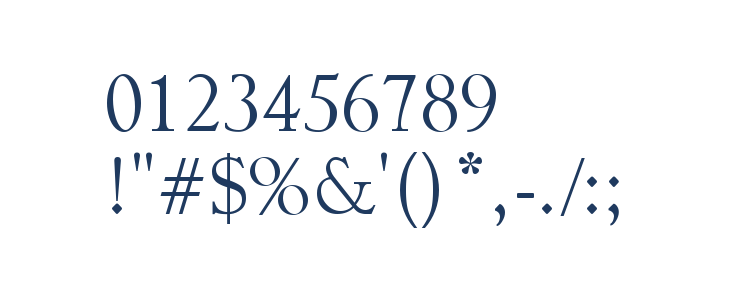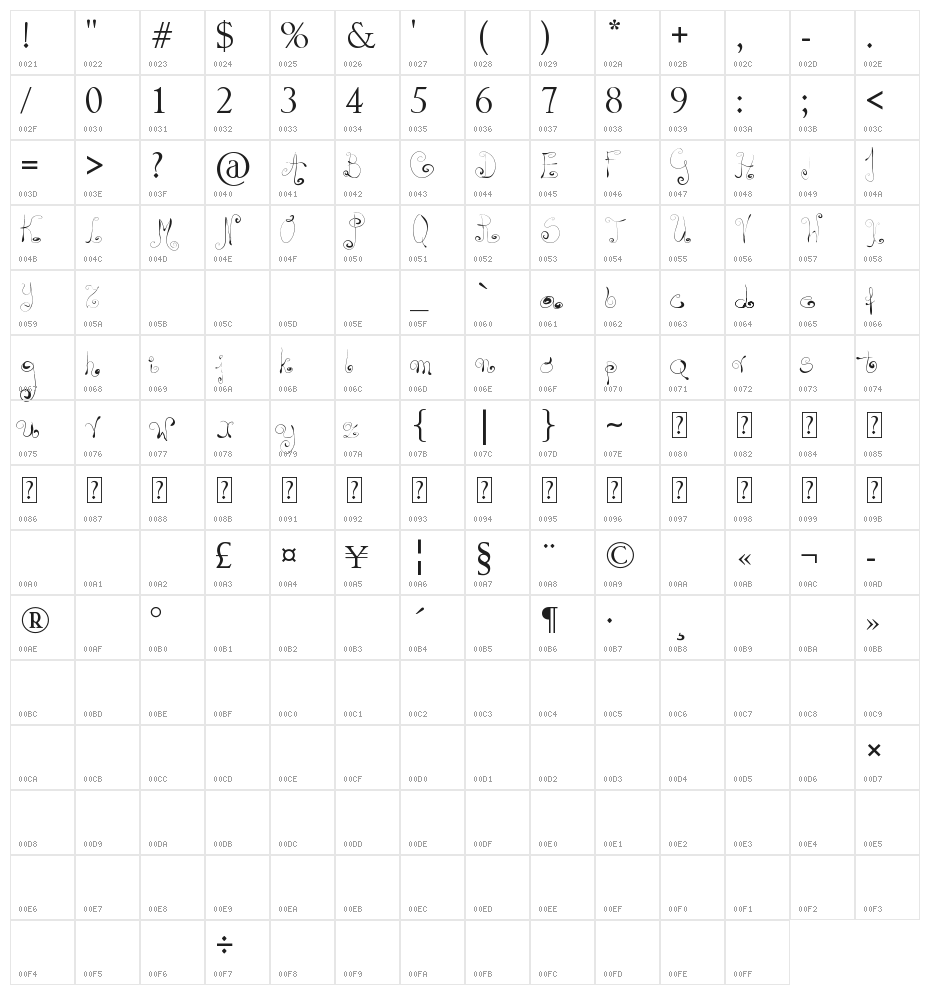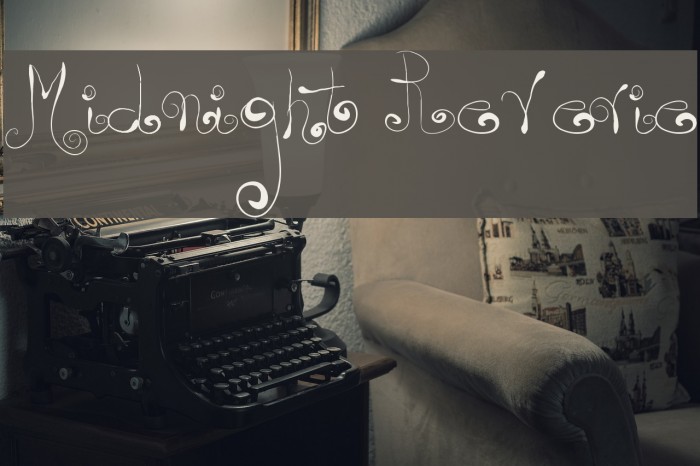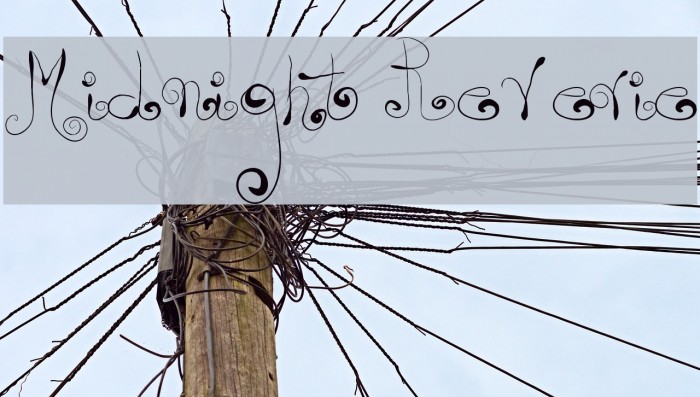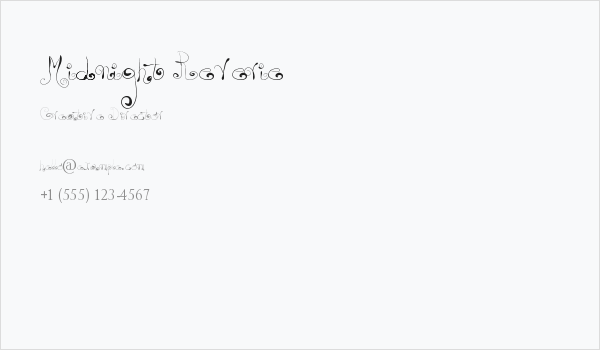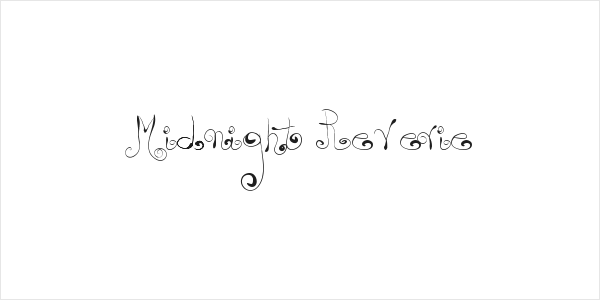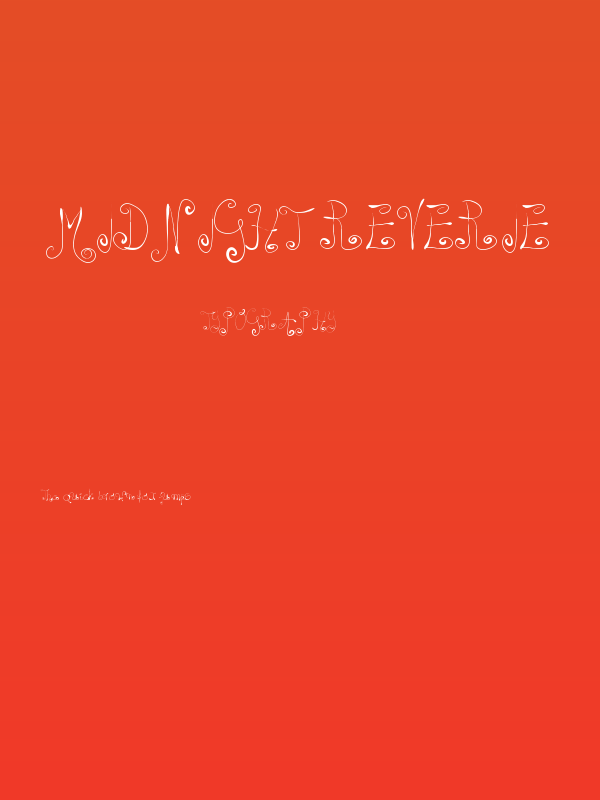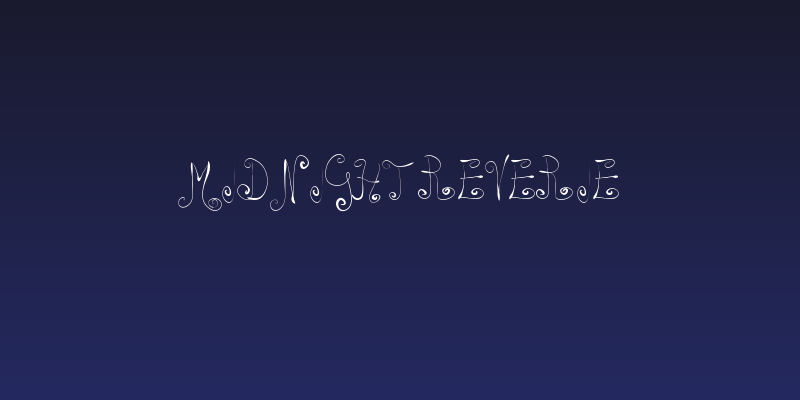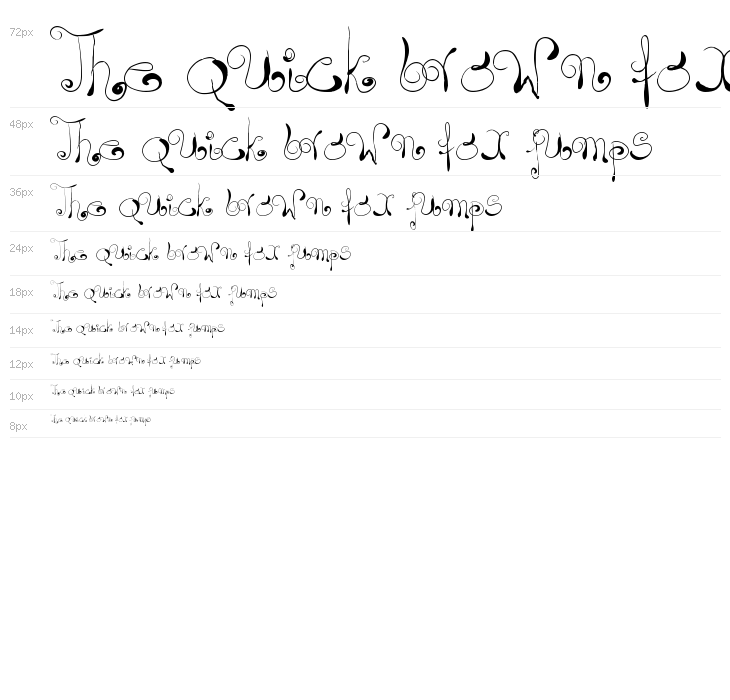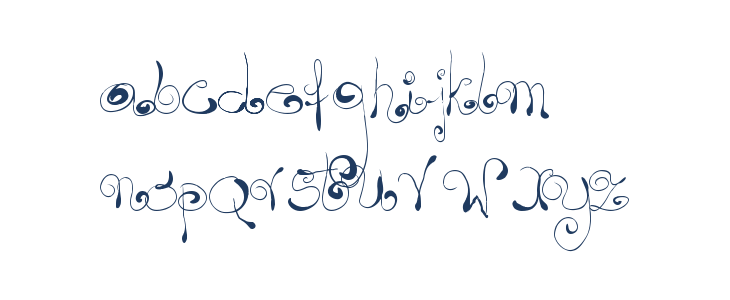
Midnight Reverie Font
| Estilo general | Whimsical, Artistic |
| Caso de uso | Headlines, Logos, Decorative text |
| Proyectos propuestos | Ideal for fantasy book covers, children's storybooks, whimsical branding, and creative invitations. |